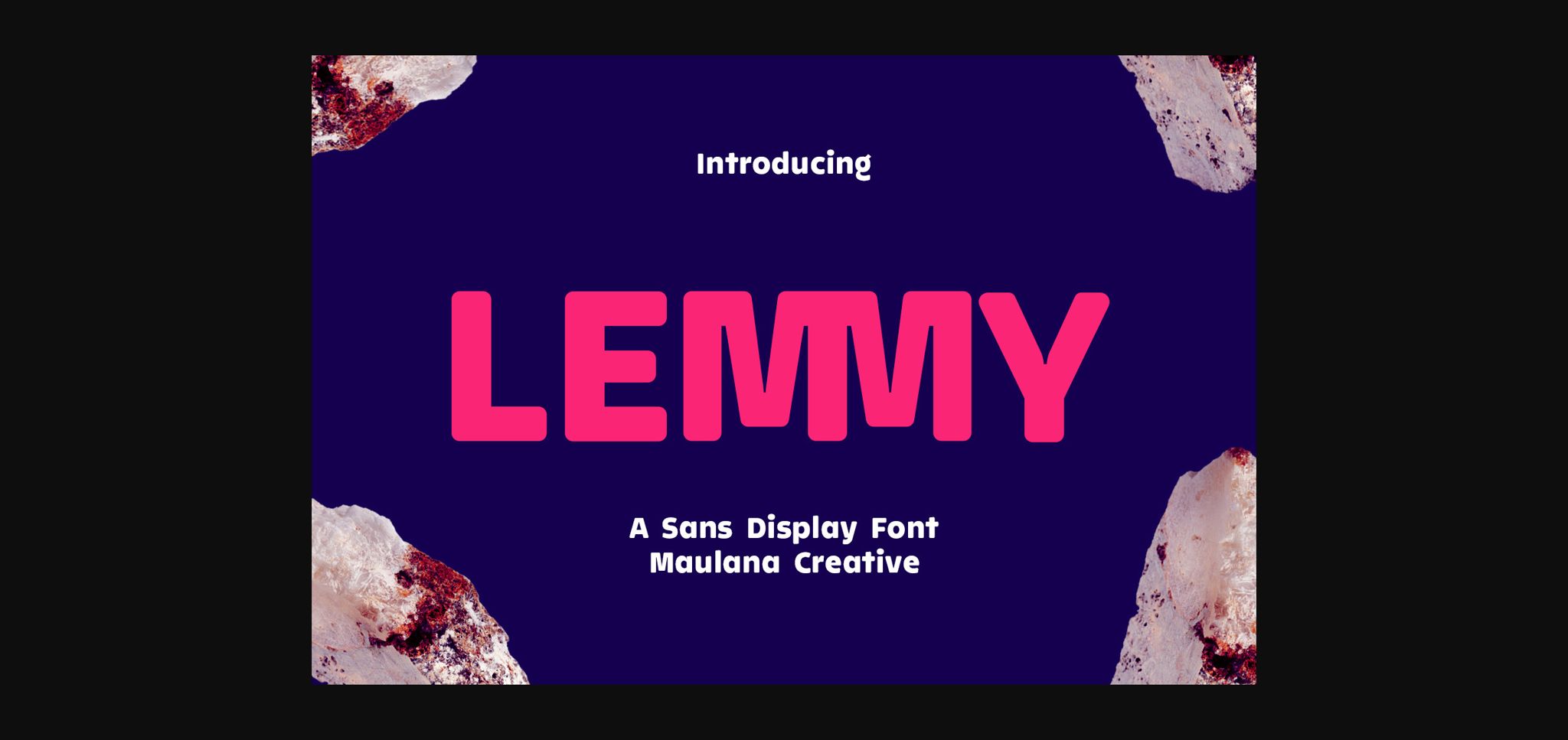
About Lemmy Font
Lemmy is a simple rounded sans serif font. Contemporary and fresh, it is perfect for any design you wish to create. Add it to your creative projects and make them outstanding!